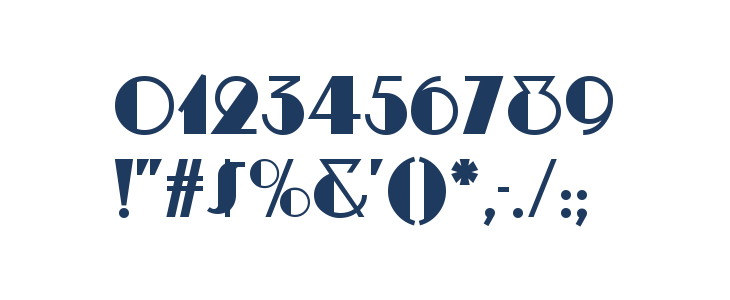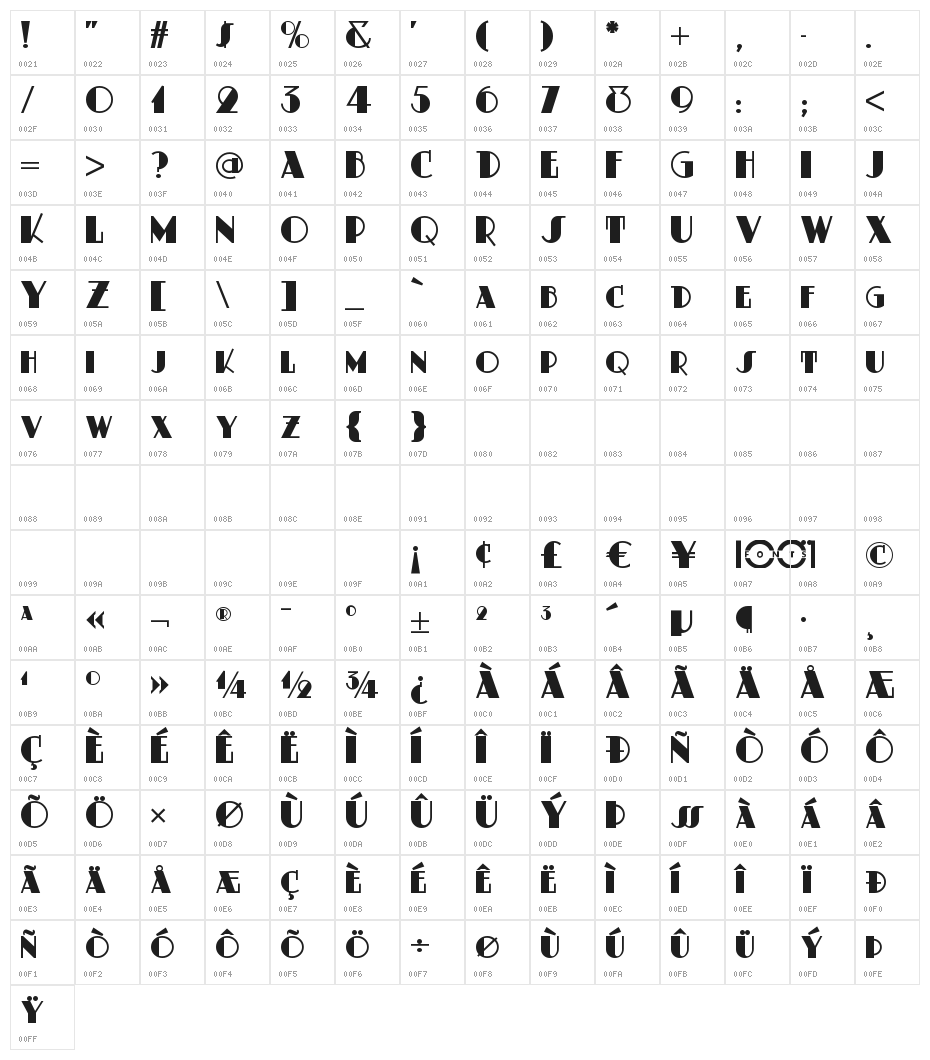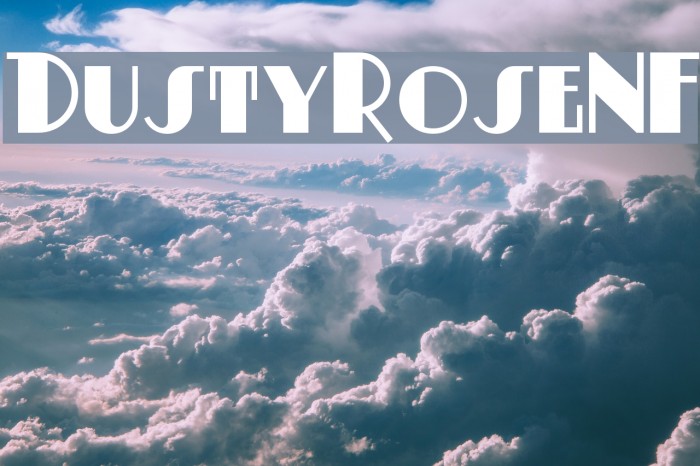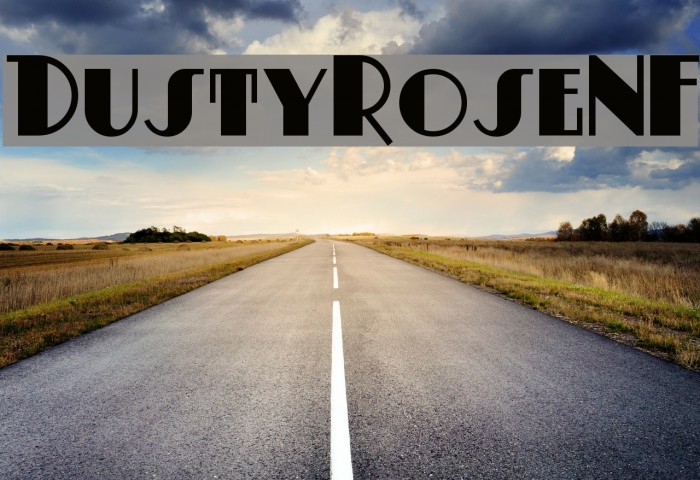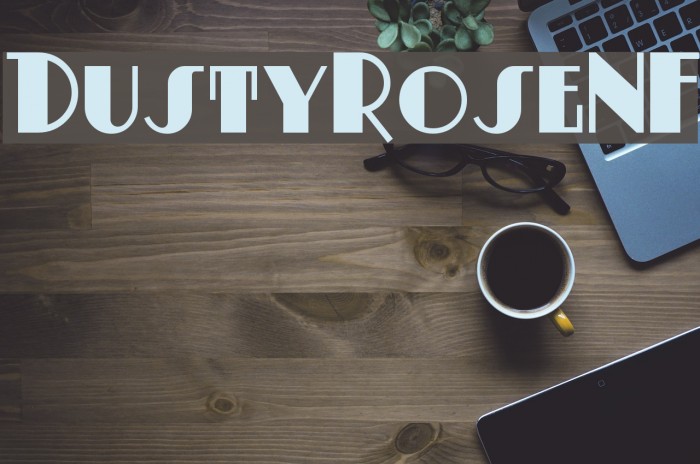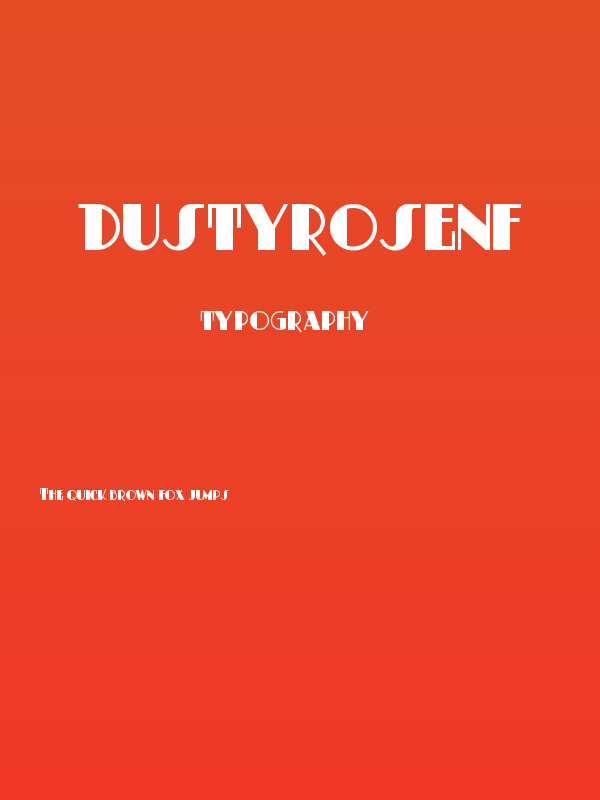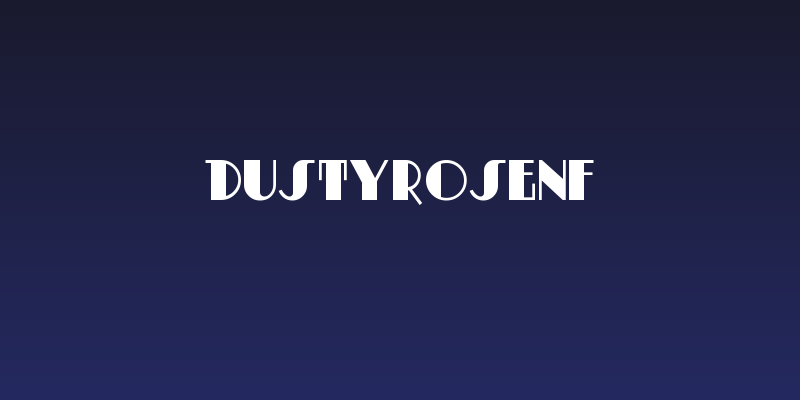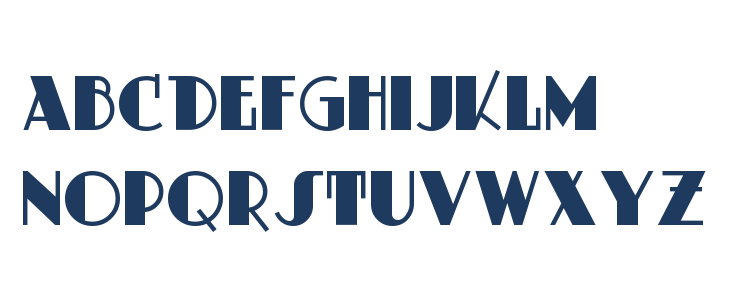
DustyRoseNF Font
DustyRoseNF Description
This font features a bold and striking design with geometric influences. The characters are constructed with sharp angles and clean lines, giving it a modern and edgy appearance. The uppercase letters are particularly distinctive, with some characters incorporating unique cutouts and asymmetrical elements that add visual interest. The numbers and special characters maintain the same bold style, ensuring consistency throughout. This font is ideal for making a statement and grabbing attention, suitable for various creative projects.